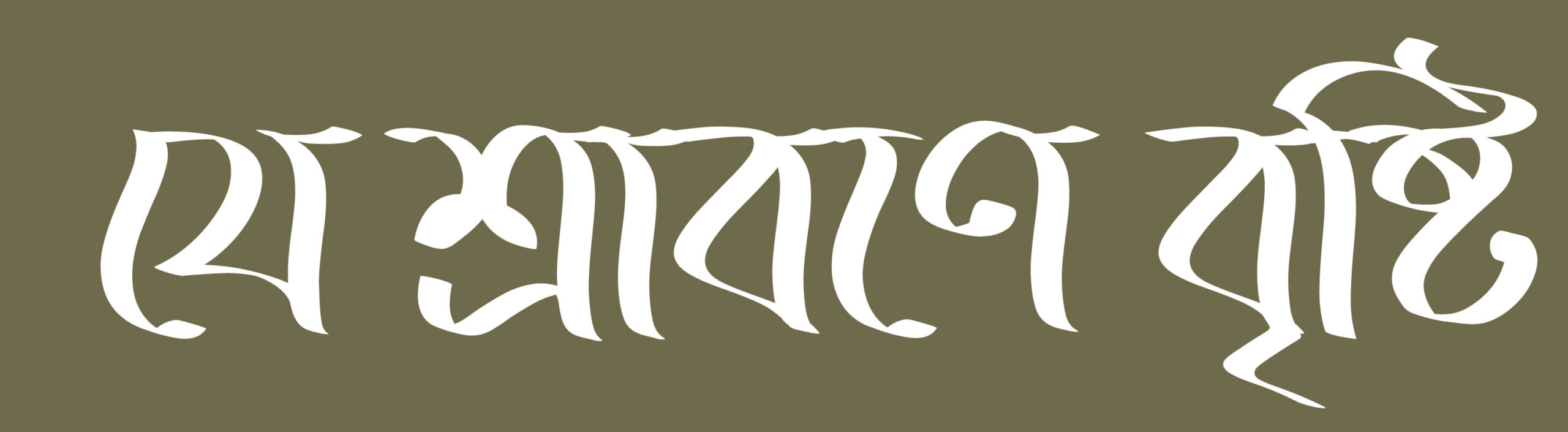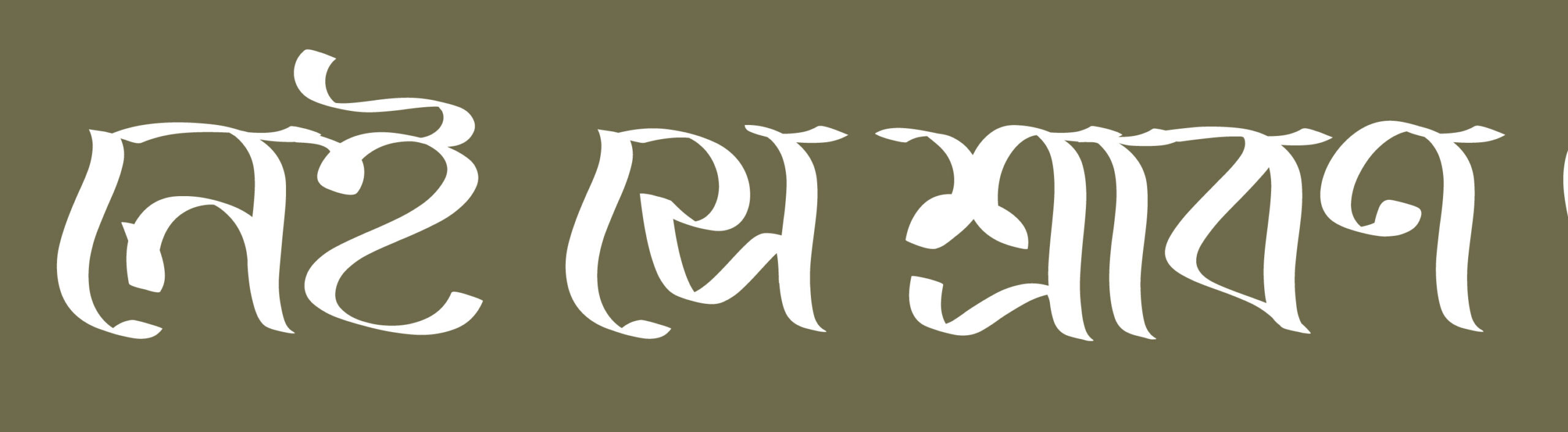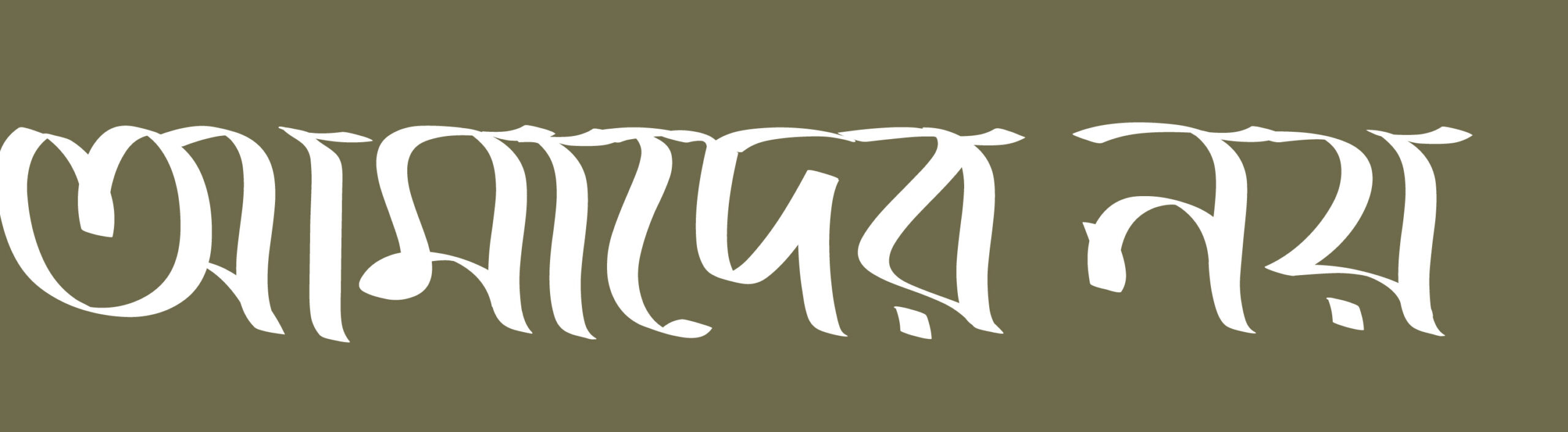
Shrabon
Designer
Kazi Jubair Mahmud
Shrabon Typeface captures the gentle, persistent rains of late monsoon with a slanted -20° angle and 20% rounded brush strokes. Its motion-filled posture resembles rain falling diagonally, while rounded edges evoke water droplets and flowing streams. Inspired by brush strokes, its organic irregularity gives letters a lively, personal feel, as if handwritten on wet paper. Balancing firmness and fluidity, Shrabon ensures readability with natural charm. Suitable for headlines and body text, it conveys personality at large sizes and warmth at smaller ones, adaptable to print and digital uses. The design reflects the emotional mood of Shrabon’s lingering rains, wet streets, and quiet introspection. It invites readers into a rhythmic atmosphere, where words flow like raindrops on a tin roof—making it a font to feel, not just read.
Language Support
Bangla
Classifications
Script
Type Engineer
Kazi Sayeed Mahmud
Publisher
Lipikola Type Foundry
Shrabon
Designer
Kazi Jubair Mahmud
Shrabon Typeface captures the gentle, persistent rains of late monsoon with a slanted -20° angle and 20% rounded brush strokes. Its motion-filled posture resembles rain falling diagonally, while rounded edges evoke water droplets and flowing streams. Inspired by brush strokes, its organic irregularity gives letters a lively, personal feel, as if handwritten on wet paper. Balancing firmness and fluidity, Shrabon ensures readability with natural charm. Suitable for headlines and body text, it conveys personality at large sizes and warmth at smaller ones, adaptable to print and digital uses. The design reflects the emotional mood of Shrabon’s lingering rains, wet streets, and quiet introspection. It invites readers into a rhythmic atmosphere, where words flow like raindrops on a tin roof—making it a font to feel, not just read.
Family Name
Shrabon
Classification
Script
Type Engineer
Kazi Sayeed Mahmud
Publisher
Lipikola Type Foundry